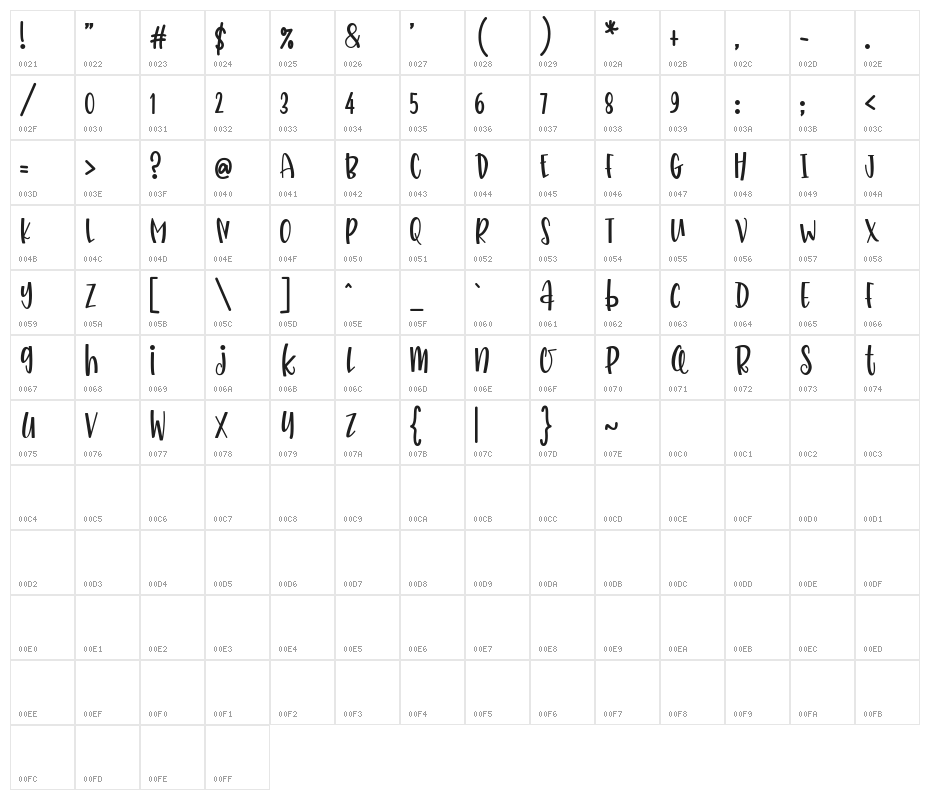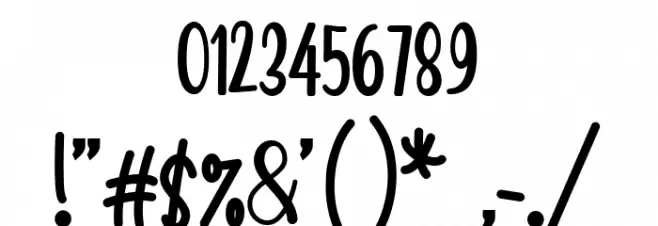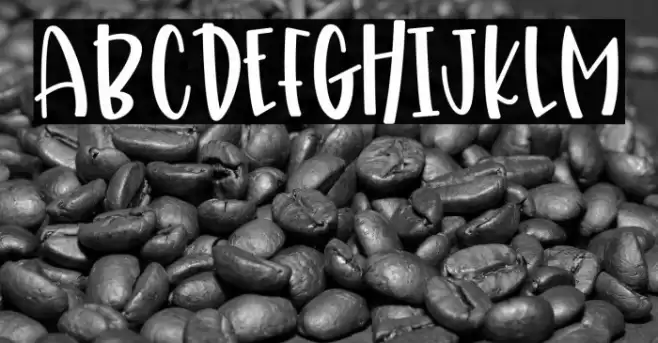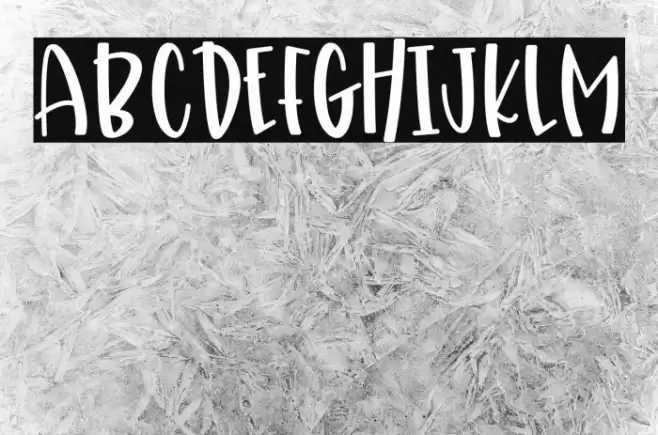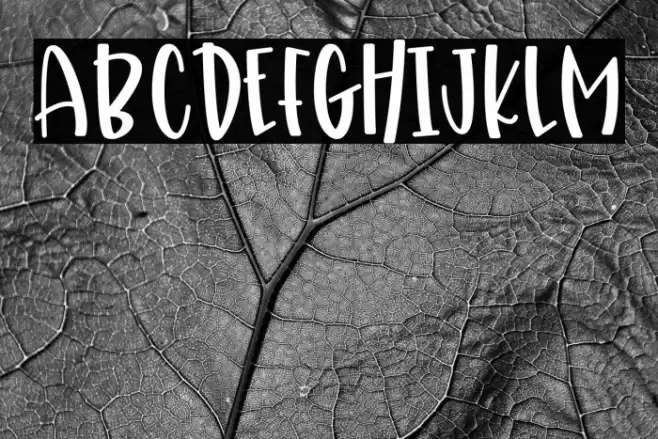
Herbal Medicine (Demo) Font
Herbal Medicine (Demo) Description
This font features a playful and whimsical design with a handwritten style that exudes a sense of creativity and fun. The characters are bold and slightly irregular, giving them a lively and dynamic appearance. The uppercase and lowercase letters maintain a consistent flow, with rounded edges and a slight slant that adds to the casual feel. The numerals and special characters are equally expressive, making this font versatile for various creative applications. Its unique style is perfect for projects that require a personal touch or a sense of individuality.
| Use Case | Logos, Headlines, Creative projects |
| Proposed Projects | Ideal for greeting cards, invitations, posters, and branding materials that seek a personal and creative touch. |